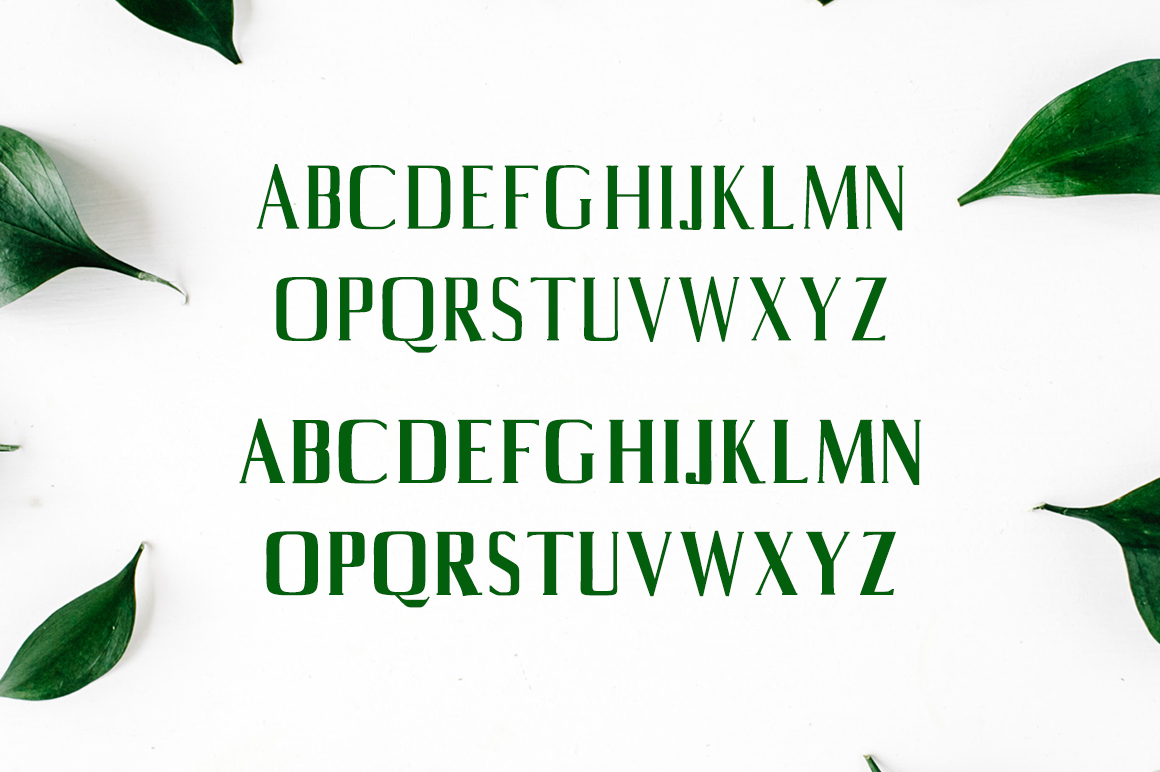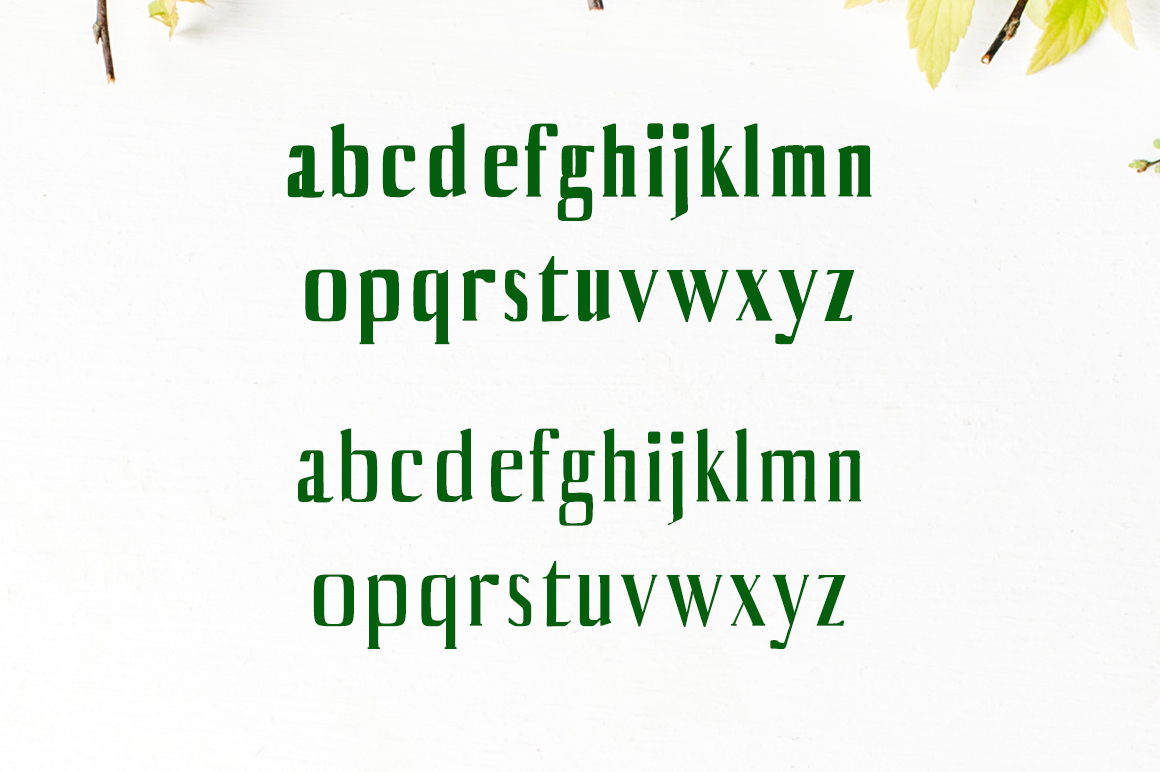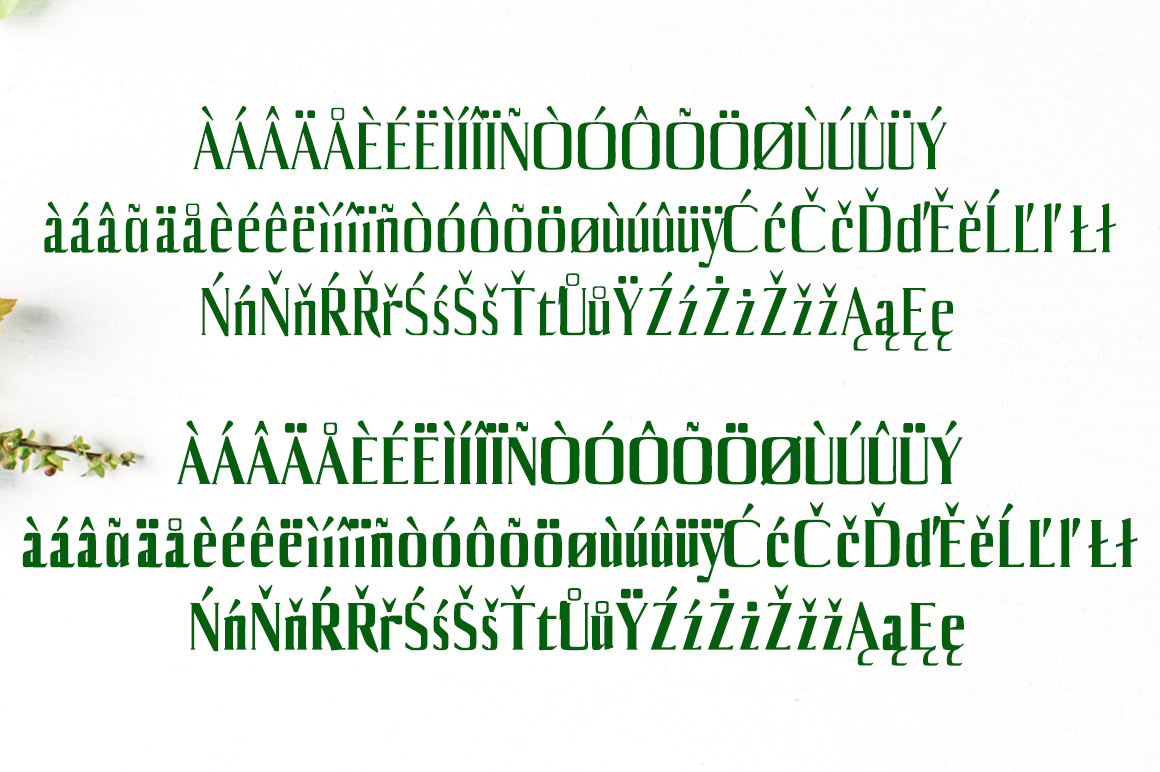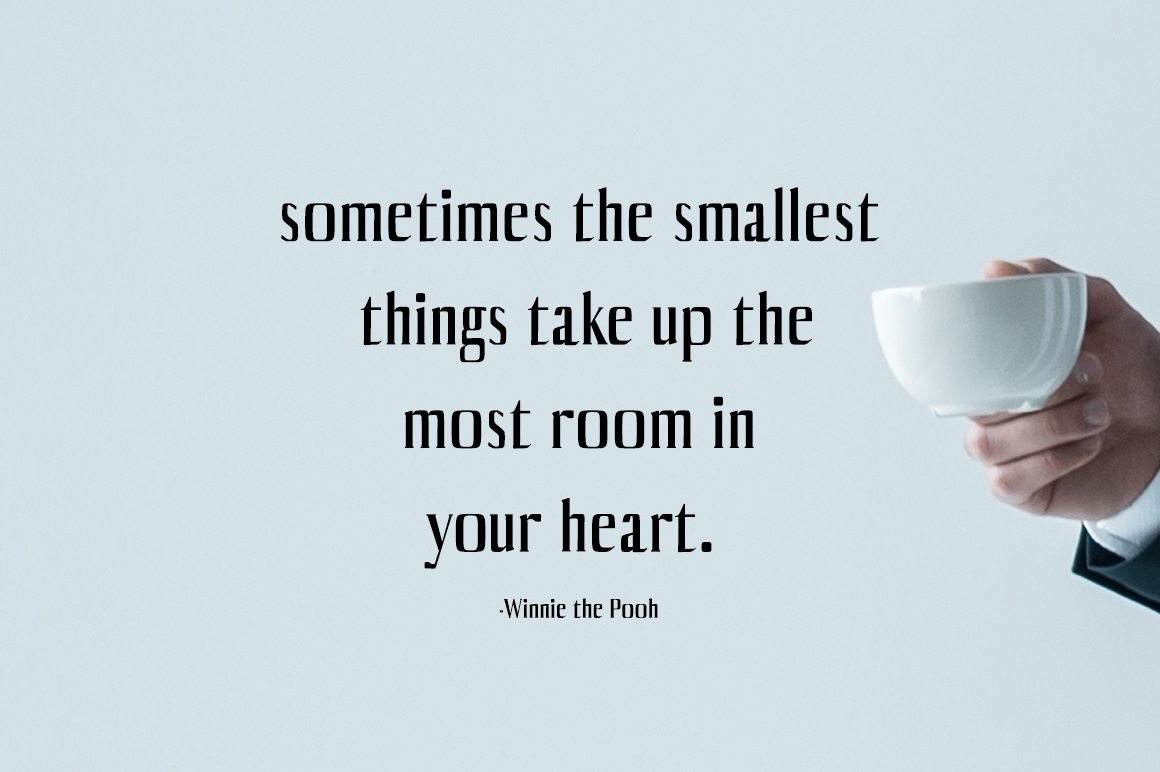
Introducing Axell Font: The Epitome of Modern Typography
In the realm of typography, fonts play a pivotal role in shaping the visual identity of a design. With numerous fonts available, selecting the right one can be daunting. However, if you’re looking to infuse your designs with a touch of modernism, look no further than the Axell Font. This contemporary, square-style typography is perfect for designers and crafters seeking to elevate their work with a sleek and geometric aesthetic.
The Characteristics of Axell Font
Axell Font is distinguished by its simple, yet sophisticated design. Its square shape lends a sense of stability and balance to any design, making it an excellent choice for a wide range of applications. The font’s geometric structure is both visually appealing and highly legible, ensuring that your message is conveyed with clarity and precision.
Why Choose Axell Font?
There are several reasons why Axell Font should be your go-to choice for modern typography:
- Modern Aesthetic: Axell Font embodies the essence of modernism, making it perfect for designers who want to create fresh and contemporary designs.
- Versatility: The font’s geometric design makes it suitable for a variety of projects, from digital media to print materials.
- Legibility: Axell’s clear and simple structure ensures that your text is easily readable, even at smaller sizes.
- Geometric Appeal: The font’s geometric shape adds a touch of sophistication and elegance to your designs.
Applications of Axell Font
Axell Font’s versatility makes it an excellent choice for various design projects, including:
- Branding: Use Axell Font to create a modern and sleek brand identity that stands out.
- Web Design: The font’s legibility and geometric design make it perfect for web typography.
- Print Design: Axell Font is suitable for print materials, such as brochures, posters, and business cards.
- Packaging: The font’s modern aesthetic makes it an excellent choice for product packaging.
Tips for Using Axell Font Effectively
To get the most out of Axell Font, consider the following tips:
- Pair with Other Fonts: Combine Axell Font with other fonts to create a unique and visually appealing typography combination.
- Experiment with Sizes: Play with different font sizes to create visual hierarchy and emphasis.
- Use Color Effectively: Select colors that complement the font and enhance the overall design.
Axell Font is a modern and sophisticated typography that can elevate your designs to new heights. Its geometric structure, legibility, and versatility make it an excellent choice for designers and crafters seeking to create fresh and contemporary designs. With its wide range of applications and ease of use, Axell Font is a valuable addition to any typography collection. So, why wait? Add Axell Font to your collection today and discover the power of modern typography.